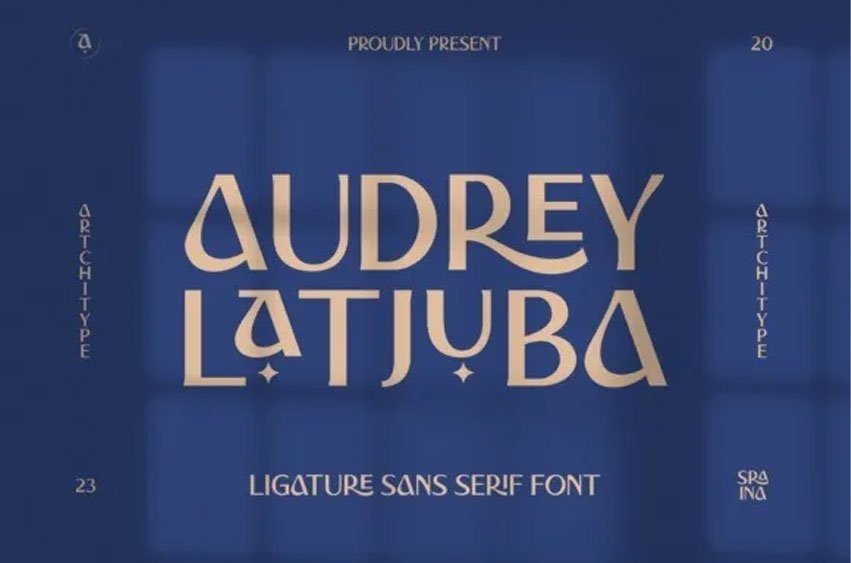
Audrey Latjuba Font is a classy display serif font with 270+ characters. Includes uppercase, lowercase characters, multilingual, alternates, and most common other characters.
Audrey Latjuba is perfect for logos, social media posts, product packaging, product designs, and other projects.